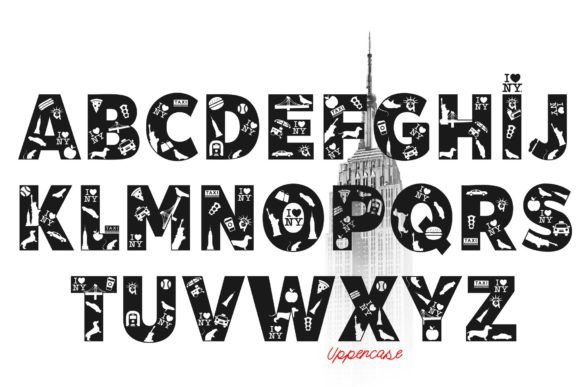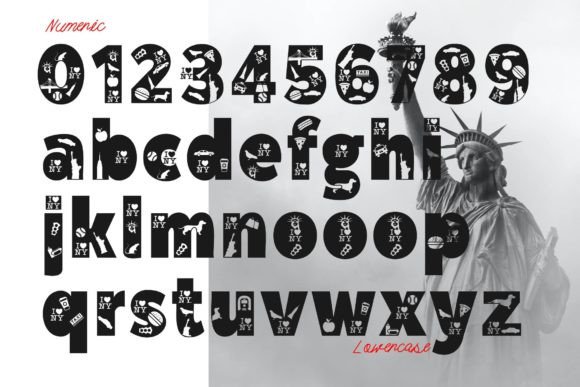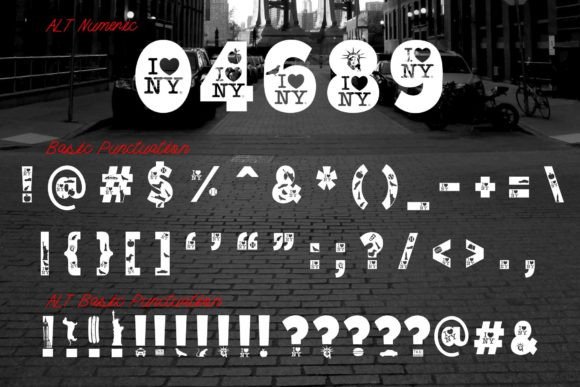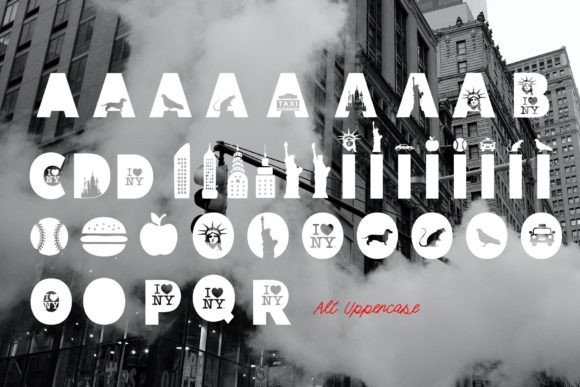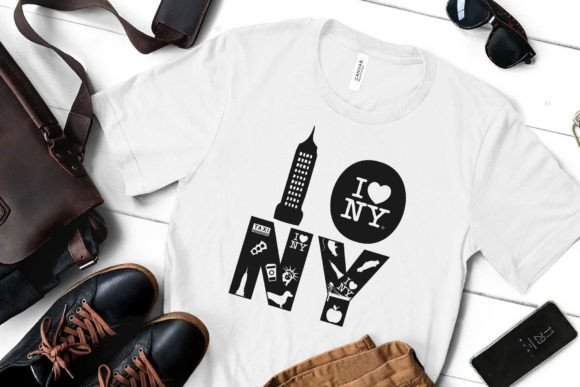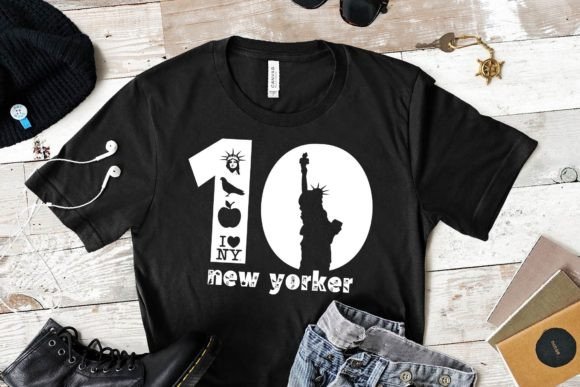
Introduction to Nyc Font
As a designer, have you ever stumbled upon the perfect font that makes your project stand out? For many of us, that moment comes when we discover a font that captures the essence of our creative vision. For me, that moment came when I found the NYC Font – a bold, stylish, and incredibly cool decorative font that adds an extra layer of sophistication to any design project.
The NYC Font is more than just a design resource; it’s a tool that can elevate your creative project to new heights. With its versatility and high-quality design, this font is perfect for logos, websites, and any other project where you want to make a statement. Plus, its PUA encoding allows for effortless access to all glyphs and alternates, making it a breeze to customize and experiment with.
Key Features of Nyc Font
- High-quality design: Nyc Font is a premium design resource suitable for various creative projects.
- Transparent background: This feature allows for easy customization and integration with any design.
- Unique characteristics: Nyc Font features a modern, urban aesthetic that is perfect for designs related to New York City or urban themes.
- Easy to use: Nyc Font is designed to be easy to use, even for designers with limited experience.
Honest Review: Nyc Font
What works well with Nyc Font is its high quality and modern aesthetic. It’s perfect for any design resource looking to add a touch of sophistication to their work. The font is clean, sleek, and easily readable, making it an excellent choice for any project.
- ✨ High quality and modern aesthetic
- ✨ Perfect for design resources and creative projects
However, there are a few limitations to consider. The font is only available in a few weights, which might limit its use in certain projects. Additionally, some users may find the font too modern or trendy, which may not appeal to all design tastes.
Overall, I’m really impressed with Nyc Font. It’s a great addition to any design resource and has the potential to elevate any creative project. While it may have some limitations, the benefits far outweigh the drawbacks.
- ⚠️ Limited weights available
- ⚠️ May not appeal to all design tastes
Tips for Getting the Most Out of Nyc Font
For the best results, use the Nyc Font on a transparent background to give your design a clean and modern look. You can also experiment with different font sizes and styles to add visual interest to your project.
The Nyc Font is ideal for creative projects that require a high-quality and modern look. Some common use cases include: logos, brochures, business cards, and social media graphics.